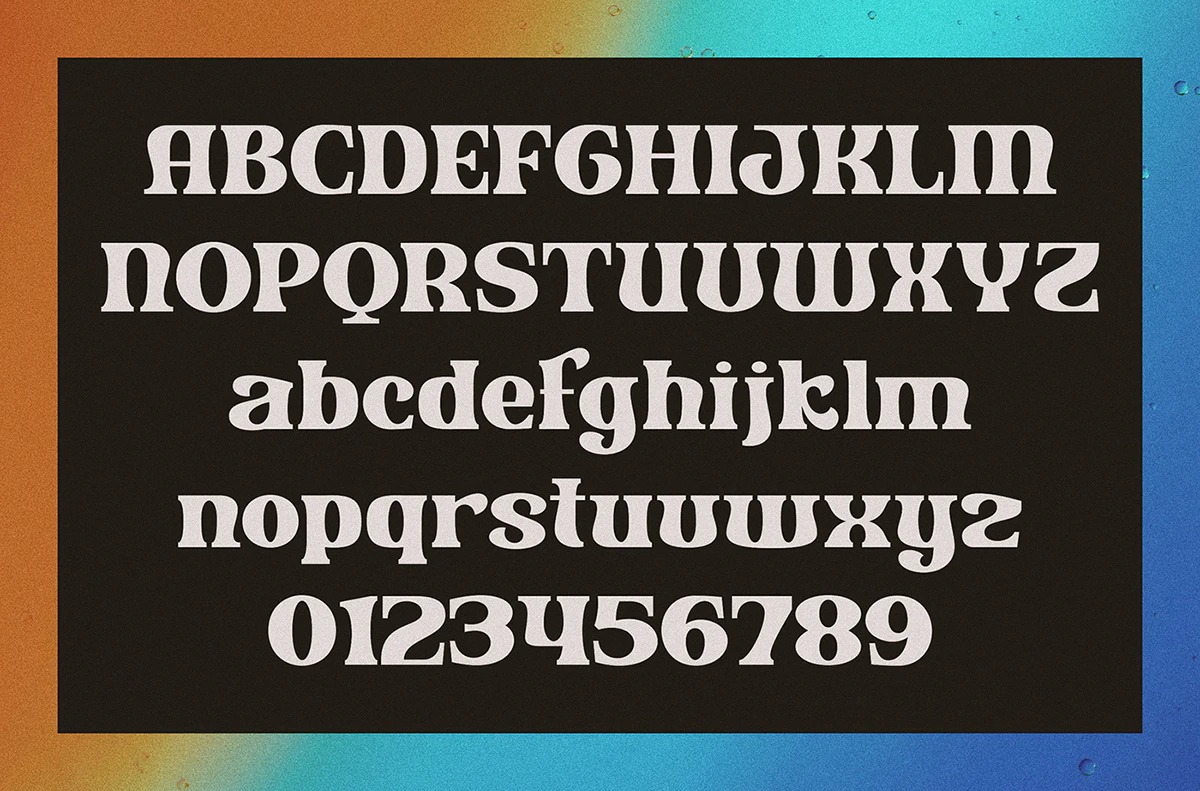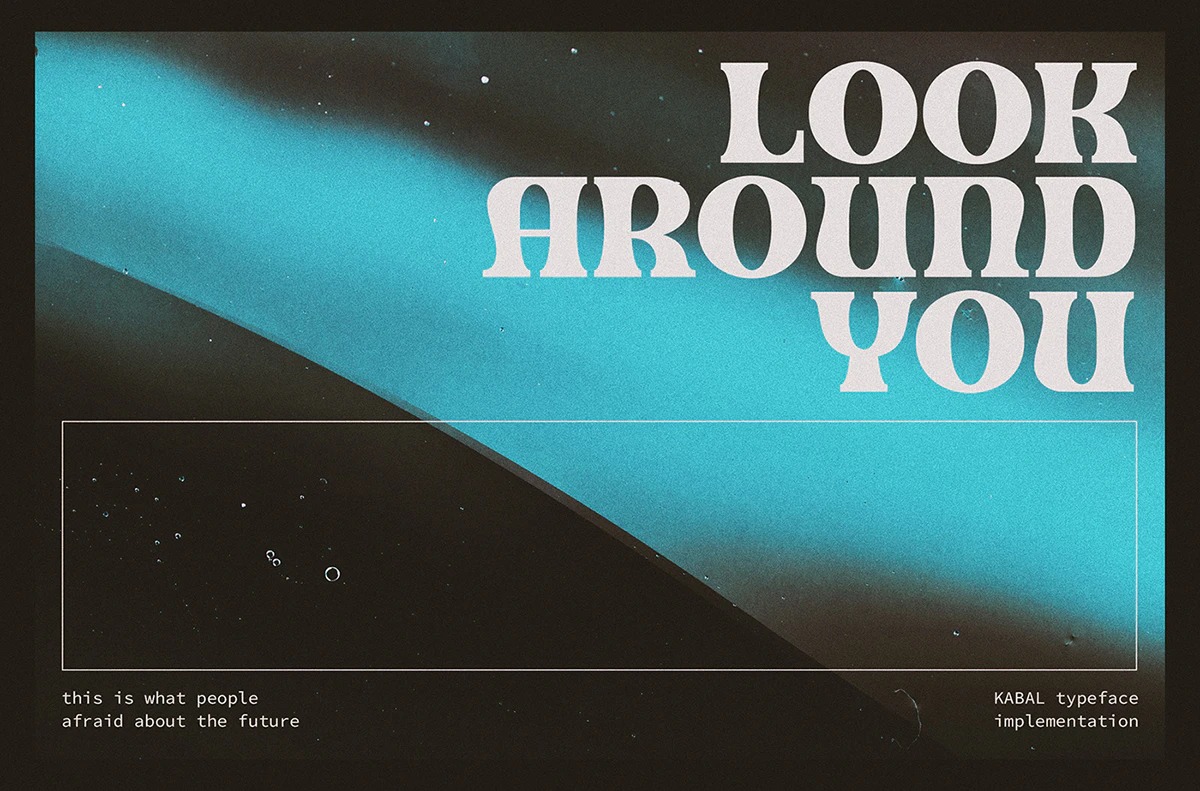
Kabal Bold Serif Font
Margin is a stylish font that is both retro and bold serif font crafted & designed by Ian Irwan Wismoyo. It’s thick curves give a 70s groovy vibe with the serifs bringing it slightly back to traditional. Margin fits perfectly into those nostalgic moodboards and vintage logos. It come with a unique lower and uppercase plus numbers, punctuation & multilingual letters.